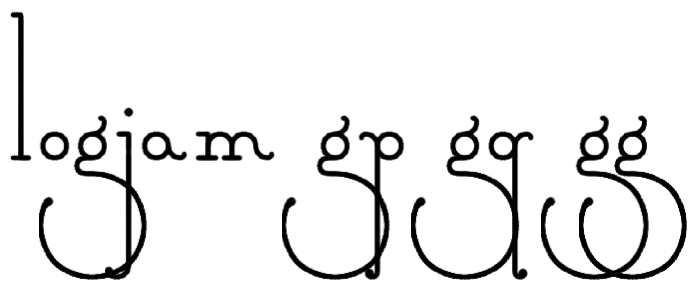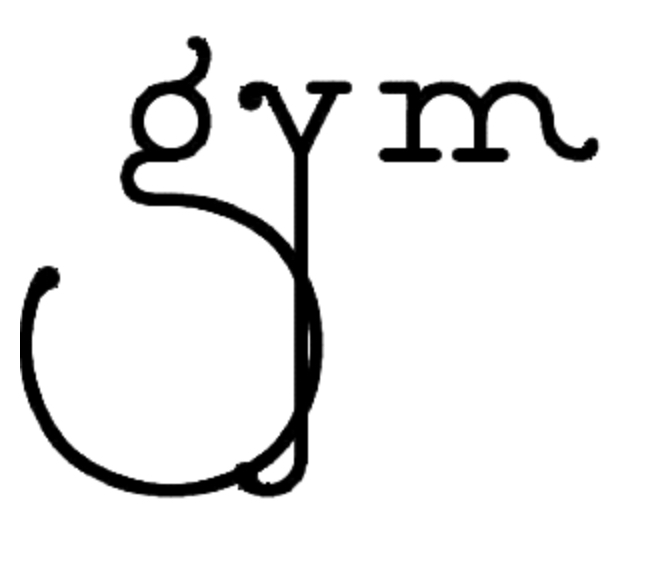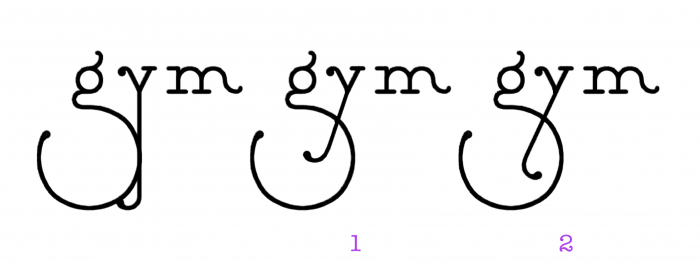
• Another Art Nouveau venture, wanted to take a more earnest look and study into the adjoining arts and craft/craftsman genres. Please enjoy
Only thing to add to this jewel is the word, stunning!
This font is absolutely amazing, but I did notice a small problem. In the word gym(along with a couple others), the lowercase g overlaps with the y. Otherwise, an immediate favorite.
There has since been a skosh of kerning to remedy the overlap
Although the overlap with the kern touch has been avoided a little, the rubbing between the "g" and the "y" still seems a little annoying to me. I dare suggest that you consider an alternative "y" (although it breaks the aesthetics of the descendants a bit) to use only in this pair of "gy" glyphs. I've made two slightly different proposals to see it.
It happens with the word logjam, plus three other letter pairs. Although gq isn't used in English, gp and gg are (pigpen, egg, exaggerate, rugged, and so on). Make sure that jg, pg, qg, and yg are checked as well.
I wonder if an alt g that uses the same bottom as on the j,y, and the same top as q is possible?
Many thanks for your diligence in helping with this, the samples are quite a boon! Over the next bit of days I'll work to incorporate these examples as special characters for use in those particular words. Wishful thinking that this will help remedy the hiccup and to not stray from the original font~
Alternatives for both "y" and "g" utilizing Elmoyenique and BWM's ideas have been incorporated. They can be found as "lowercase y with hook" and "lowercase g with hook" respectively (seemed both fitting and a literal description of the glyphs). Once again, many thanks for the help :)
i rock with the very tall ascenders and descenders honestly, nice work !
tbh the oversized ascenders and descenders kinda remind me of my own handwriting
I love that your lowercase S is the cursive one. 9.5/10!
It looks like the Futuracha font.